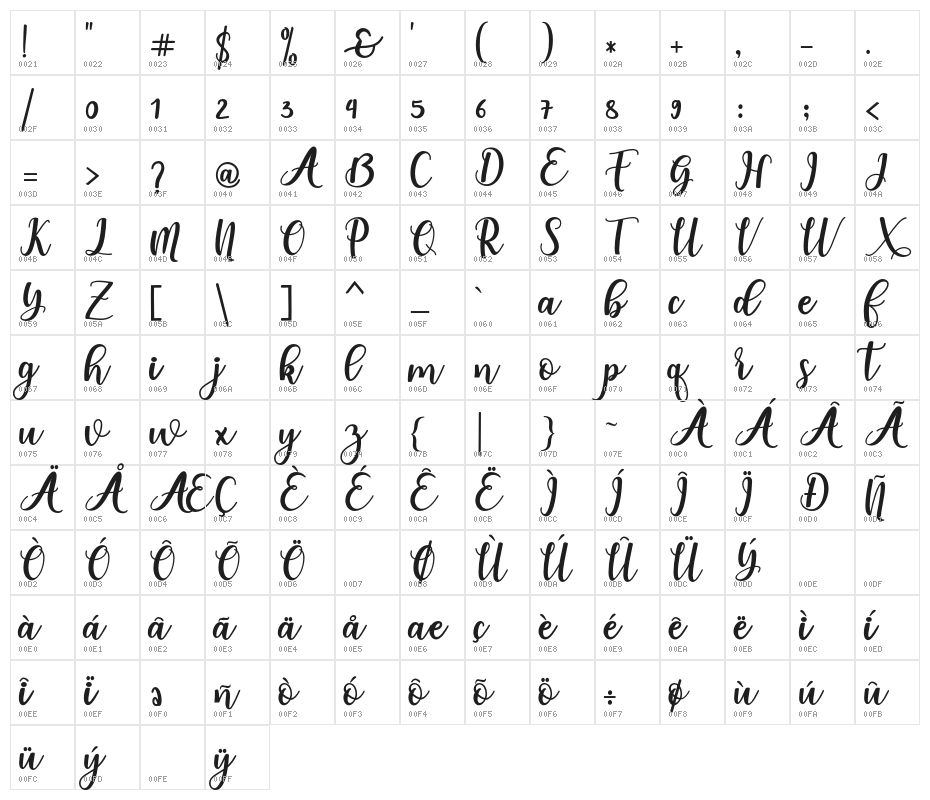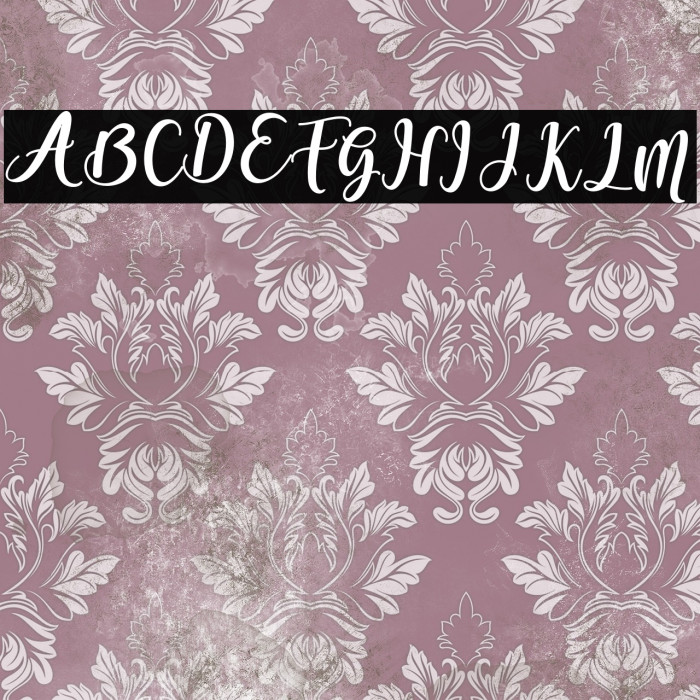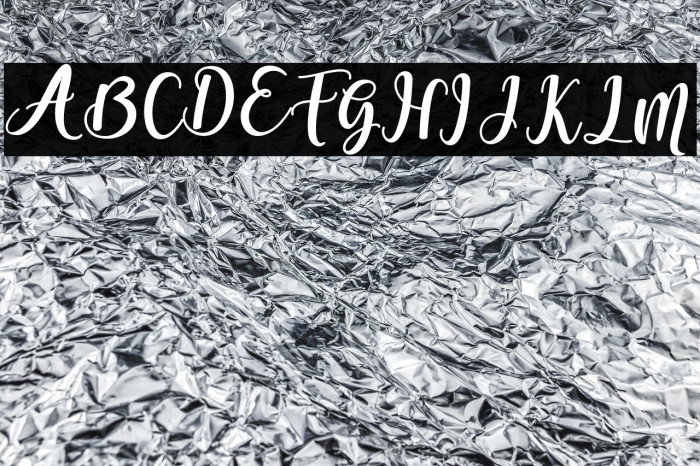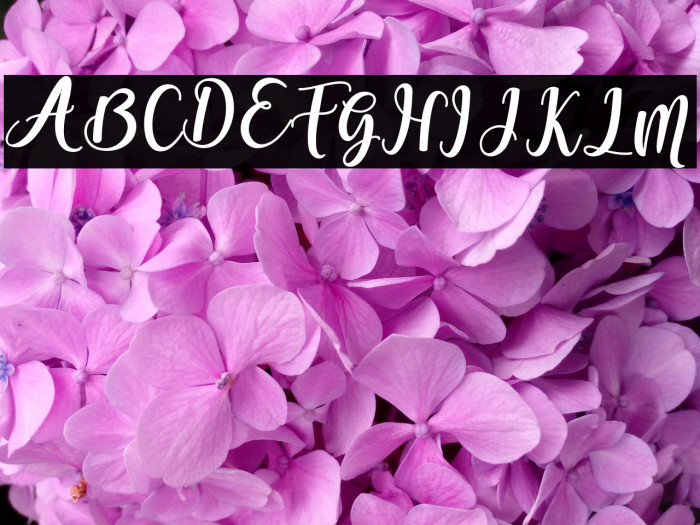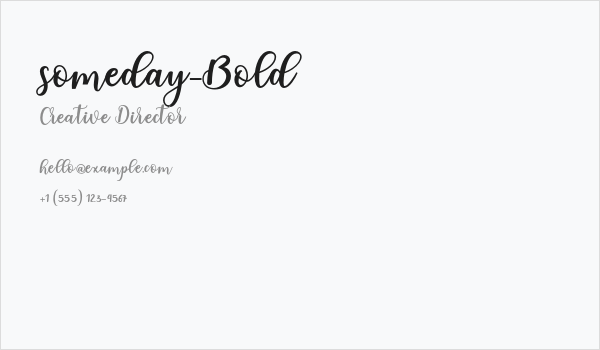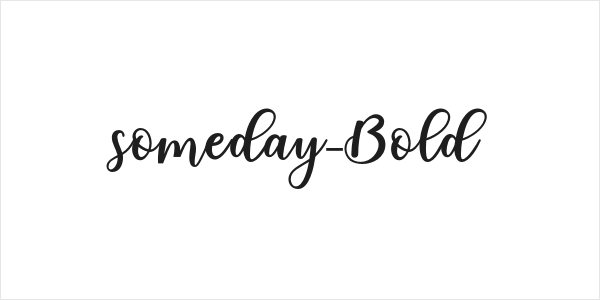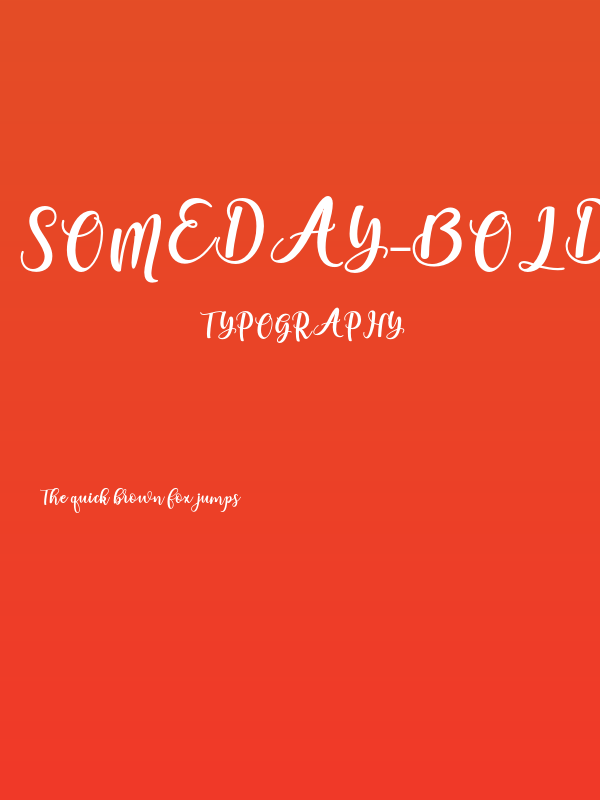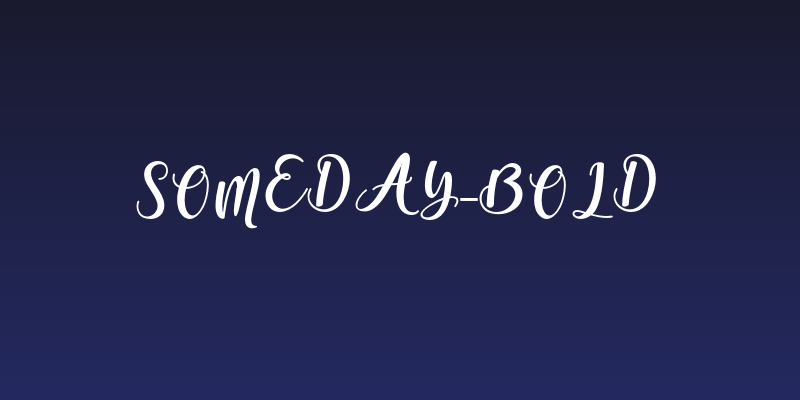
someday-Bold Font
someday-Bold Description
This font features a bold, flowing script style that exudes elegance and sophistication. The characters are interconnected, creating a seamless and fluid appearance. The uppercase letters are ornate with sweeping curves, while the lowercase letters maintain a consistent rhythm with slightly exaggerated loops and swashes. The numerals are distinct yet harmonize well with the overall script style. Special characters are designed to complement the letterforms, maintaining the decorative and stylish essence of the font. This typeface is perfect for projects that require a touch of elegance and flair.
| Proposed Projects | Ideal for wedding invitations, branding, logos, and elegant packaging designs. |